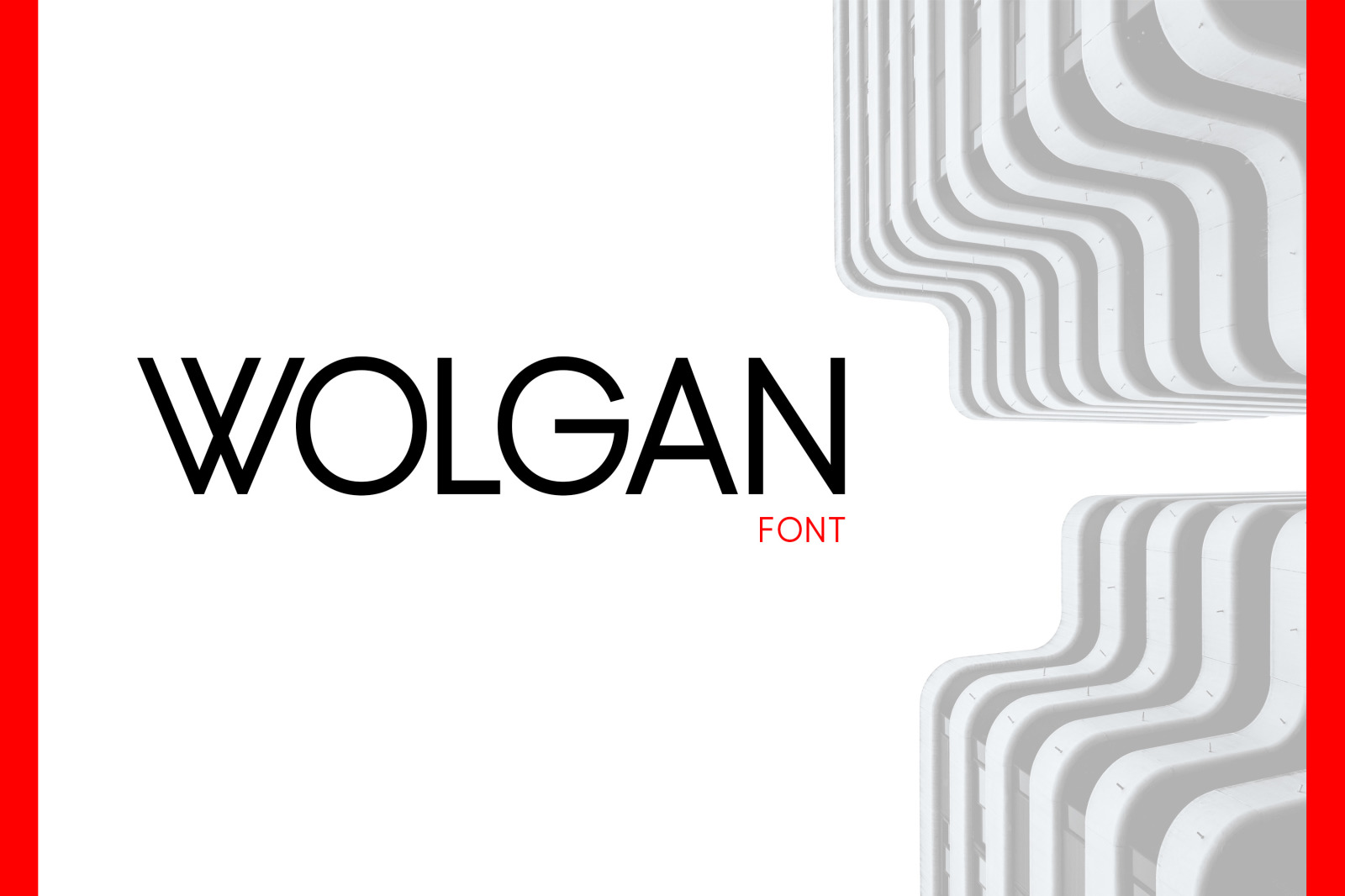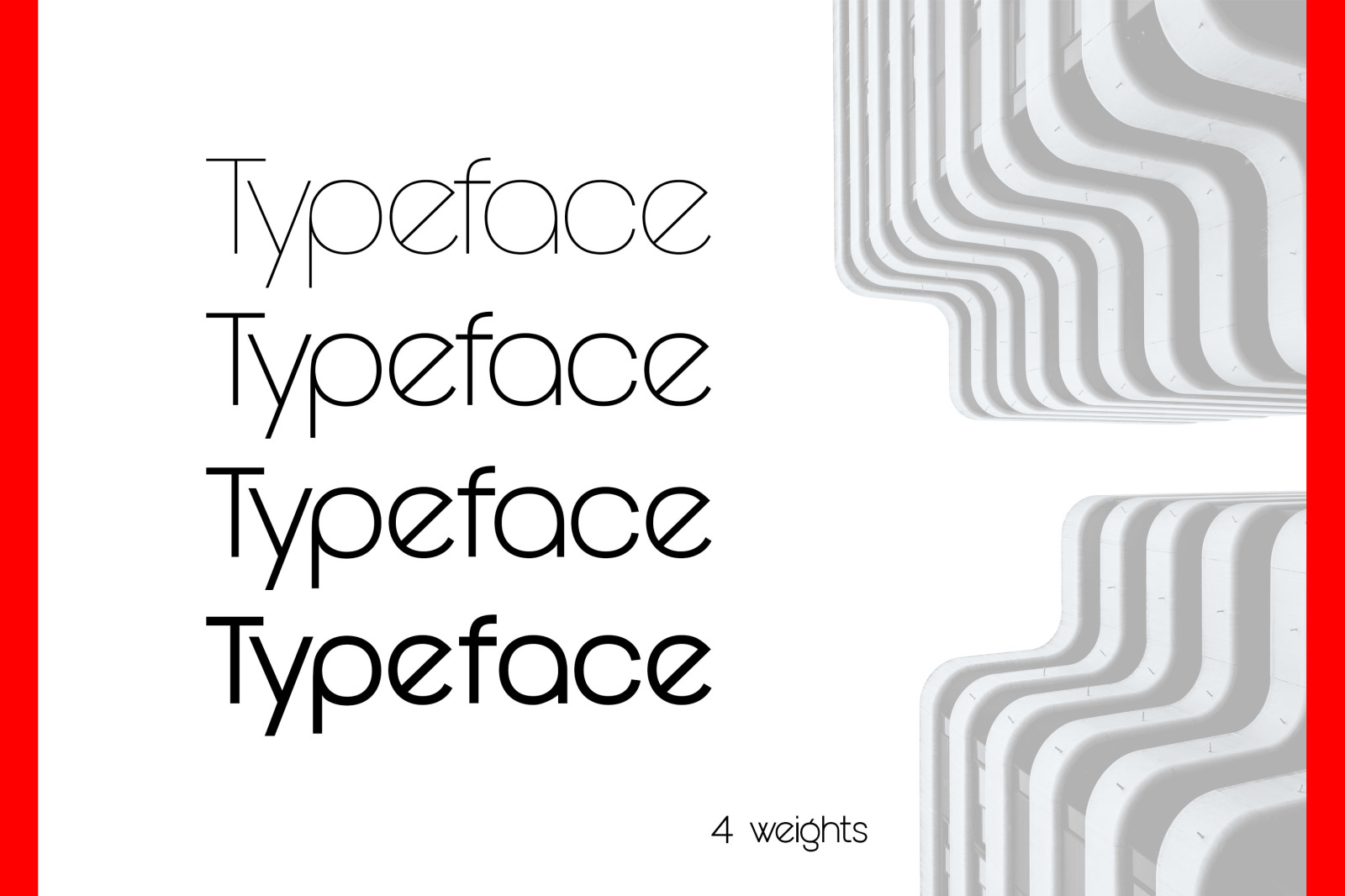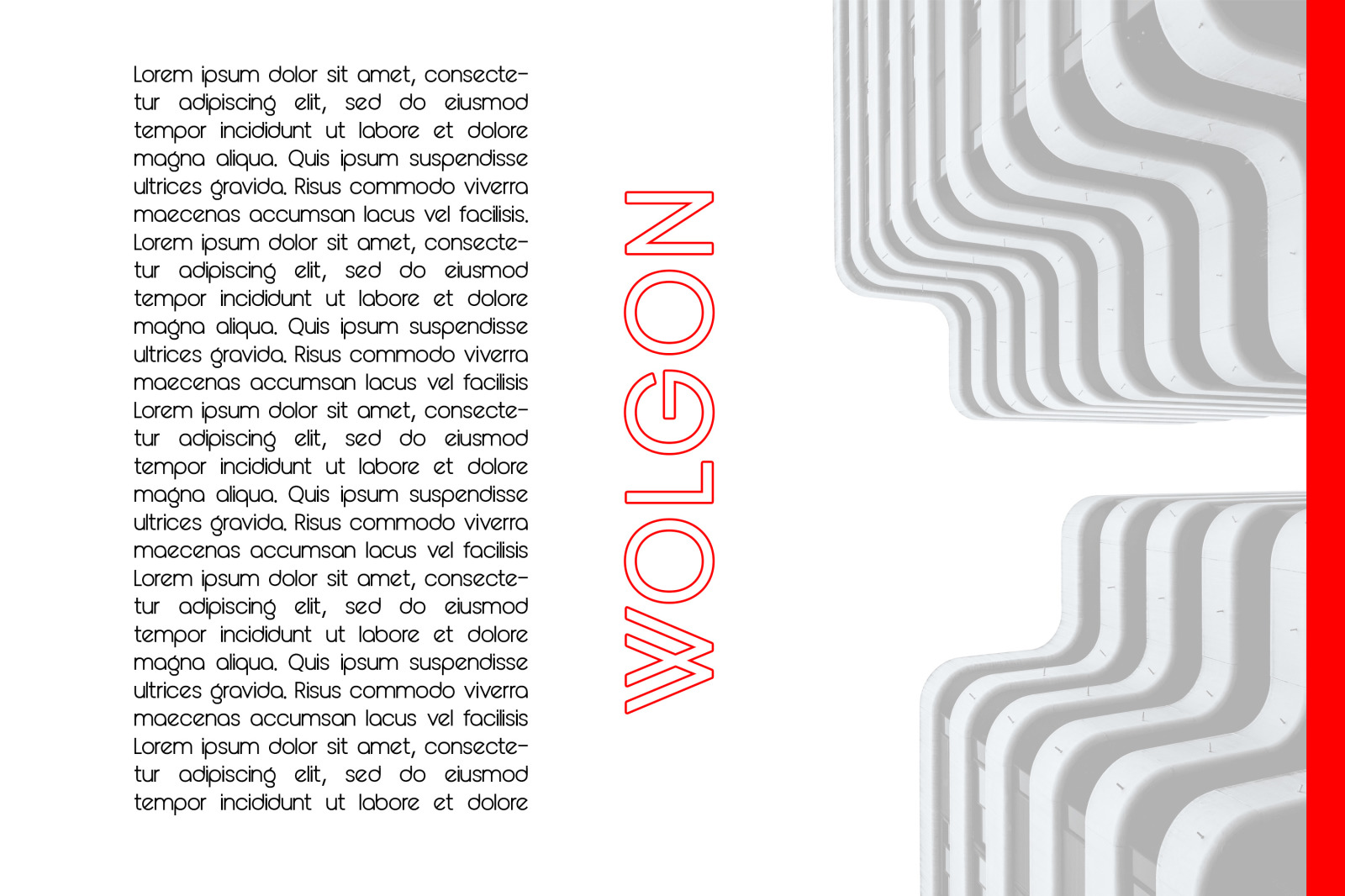
Wolgan Font
Wolgan is a clean and simple sans serif font. Suitable to a wide variety of designs due to its neat and simple style, this font has the potential to become your favourite go-to font, no matter the occasion!
Wolgan Font is a multi-variant sans serif font. This font provides modern feel to headline to body copy.
It's ideally suited for logotypes, branding, editorial design as well as web and screen design. Wolgan is available in Four weights: Thin, Extra light, Light, regular
This font has 200 above glyphs and extensive Latin script support and upper and lowercase sans serif characters. It carries a powerful, unique, and social character line with a premium finish, giving a new impression. Add it confidently to your favorite creations and let yourself be amazed by the outcome generated.
This variant sans serif is so versatile and looks great in just about any context. You can create elegant and beautiful logos, printings in T-shirts, and other materials.
An attractive font that gives a simple and stylish impression, it will also look good when you use it in a design that has a luxury style.